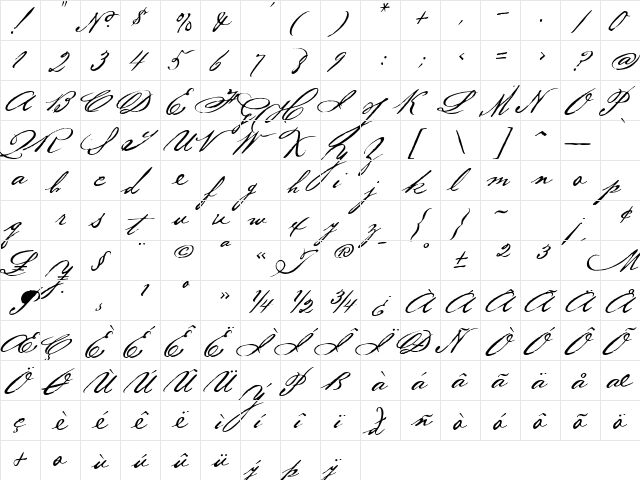
BakerScript Regular
Design Context for BakerScript Typeface
BakerScript flows with the natural rhythm of handwritten lettering, making it ideal for designs that call for warmth and personal expression.
Font Pairing: Combine BakerScript with a simple geometric sans for maximum contrast — the tension between flowing curves and clean structure is a classic typographic pairing.
Pro Tip: Pair BakerScript with a clean sans-serif for supporting text. The contrast between fluid script and geometric structure creates an elegant typographic hierarchy.